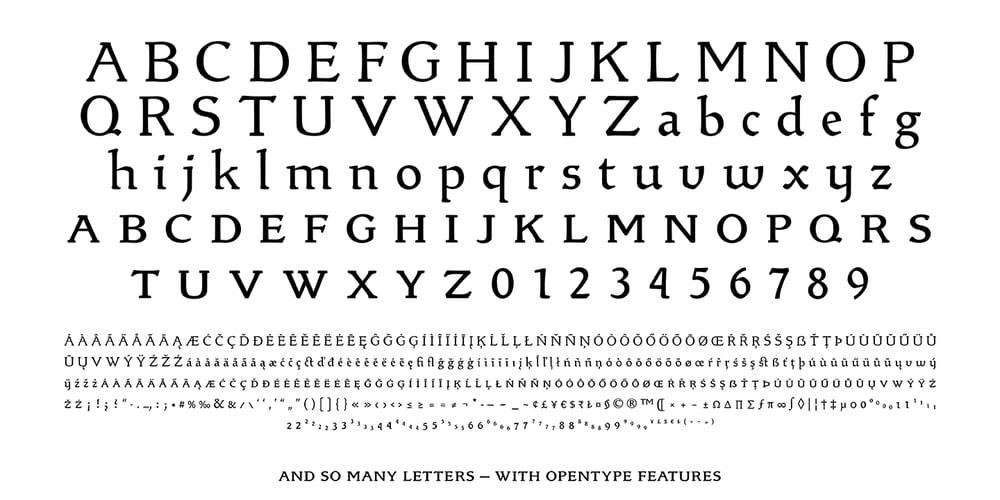
Bremer Presse Font Family was designed by Dorothée Schraudner and published by Schraube. Bremer Presse contains 3 styles and family package options. As most successful German private press, «Bremer Presse» has strongly influenced German book art. It was founded 1911 in Bremen to print and produce books in perfection. The role model of the press’ typeface was the english Doves Press. Willy Wiegand drew three versions of the «Bremer Presse» antiqua font, starting with the regular weight in 16 pt and adding later the regular weights in 11 and 12 pt. The revival of this beautiful font is based on the 12 pt weight. During the design process, the focus was laid on finding the elegance and strength of original prints. As it was designed to print books, the typeface is optimally used for texts. And with the revival’s new weights «medium» and «bold» and OpenType features like ligatures or old style figures, you can design sophisticatedly typographical compositions.